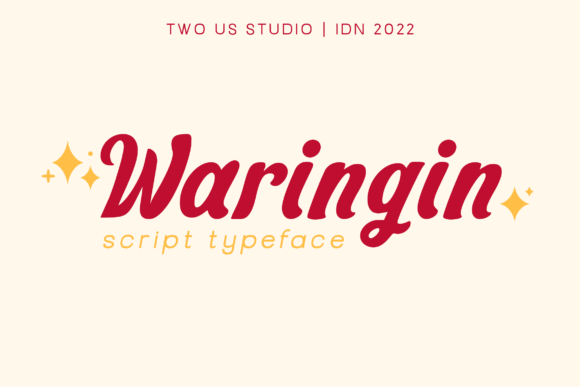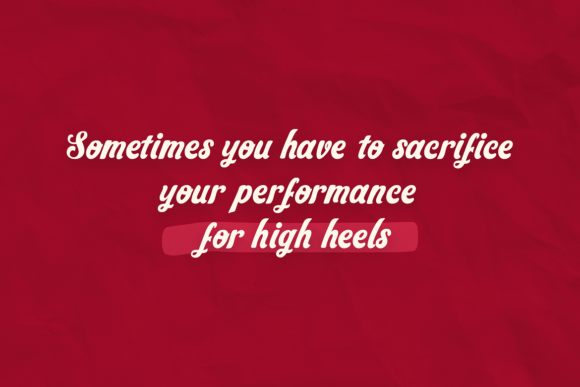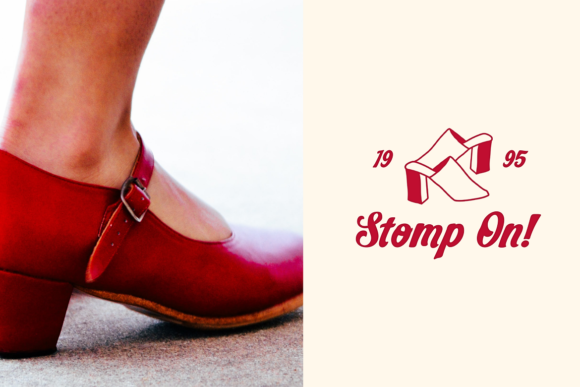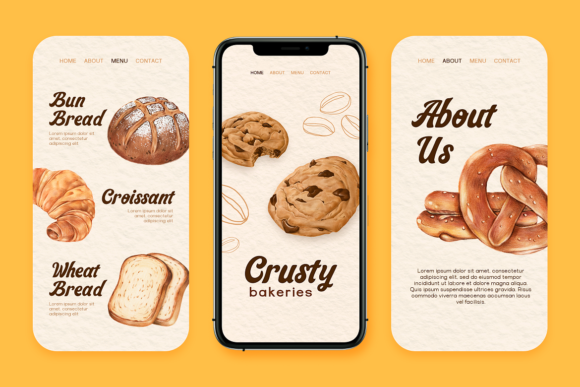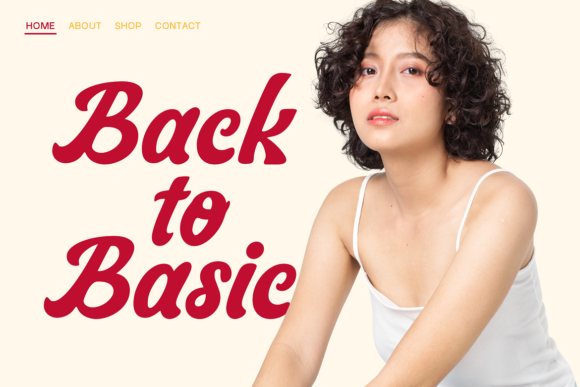
Waringin Font
Waringin is a retro styled and graceful script font. Fall for its gorgeous style and use it to create gorgeous wedding invitations, beautiful stationary art, eye-catching social media posts, and much more!